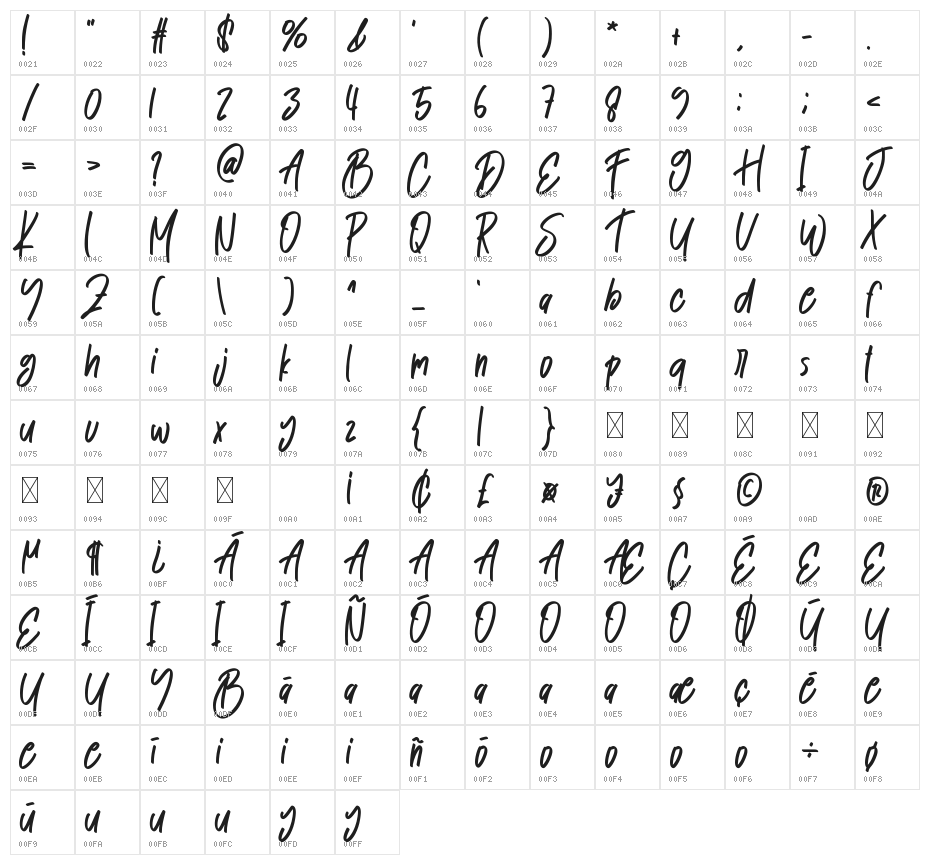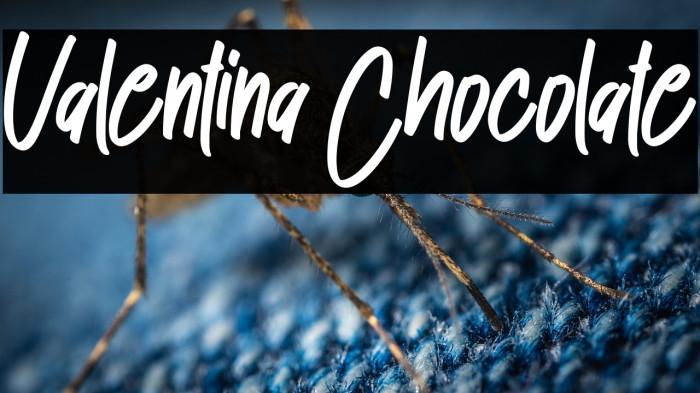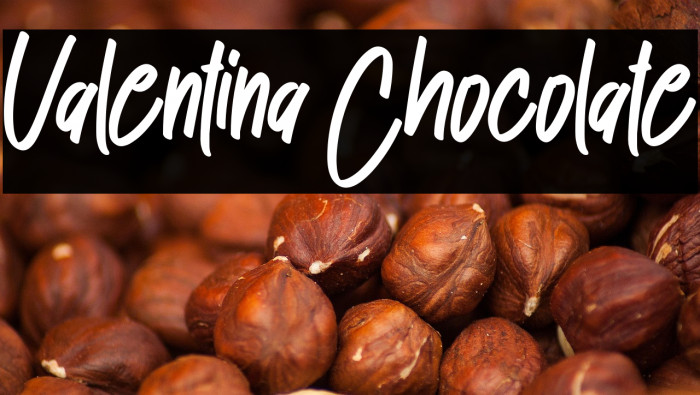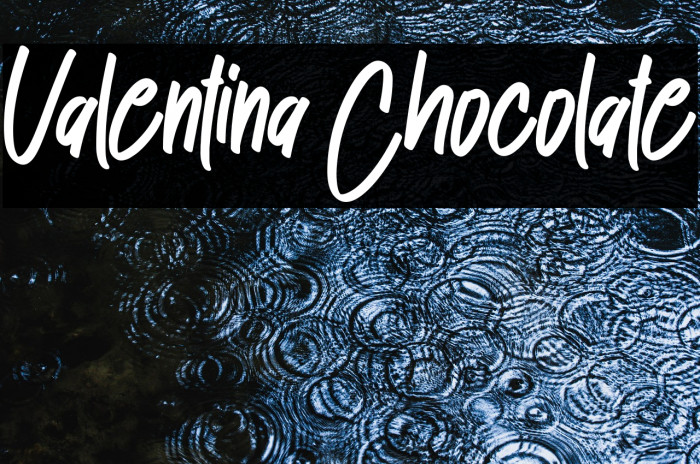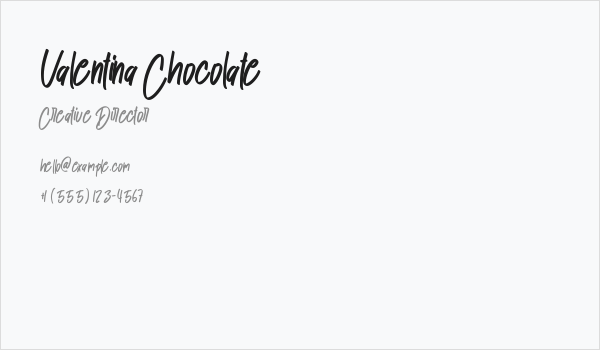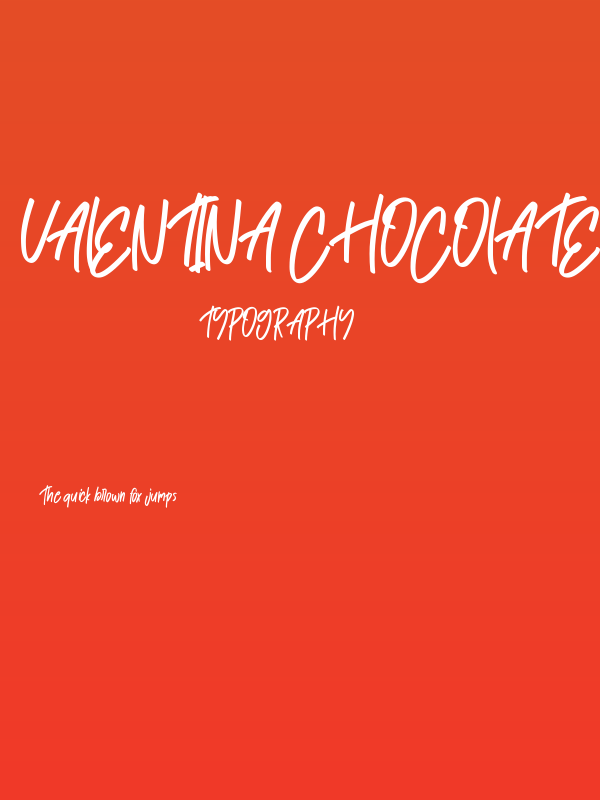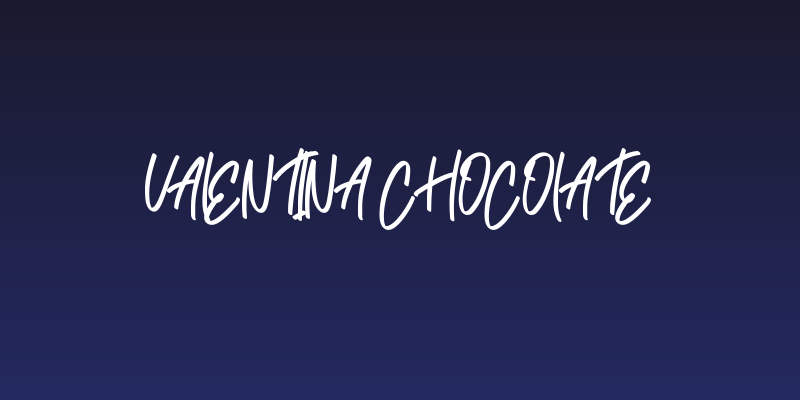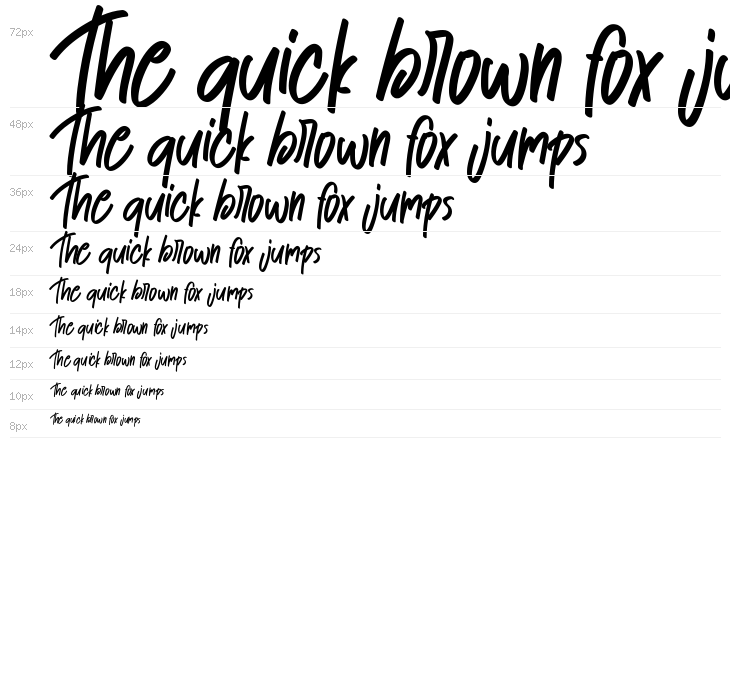
Valentina Chocolate Font
Valentina Chocolate Description
A bold, handwritten script font with a casual and expressive style, featuring dynamic strokes and a playful appearance.
| Use Case | Logos, Headlines |
| Proposed Projects | Greeting cards, invitations, posters, branding. |